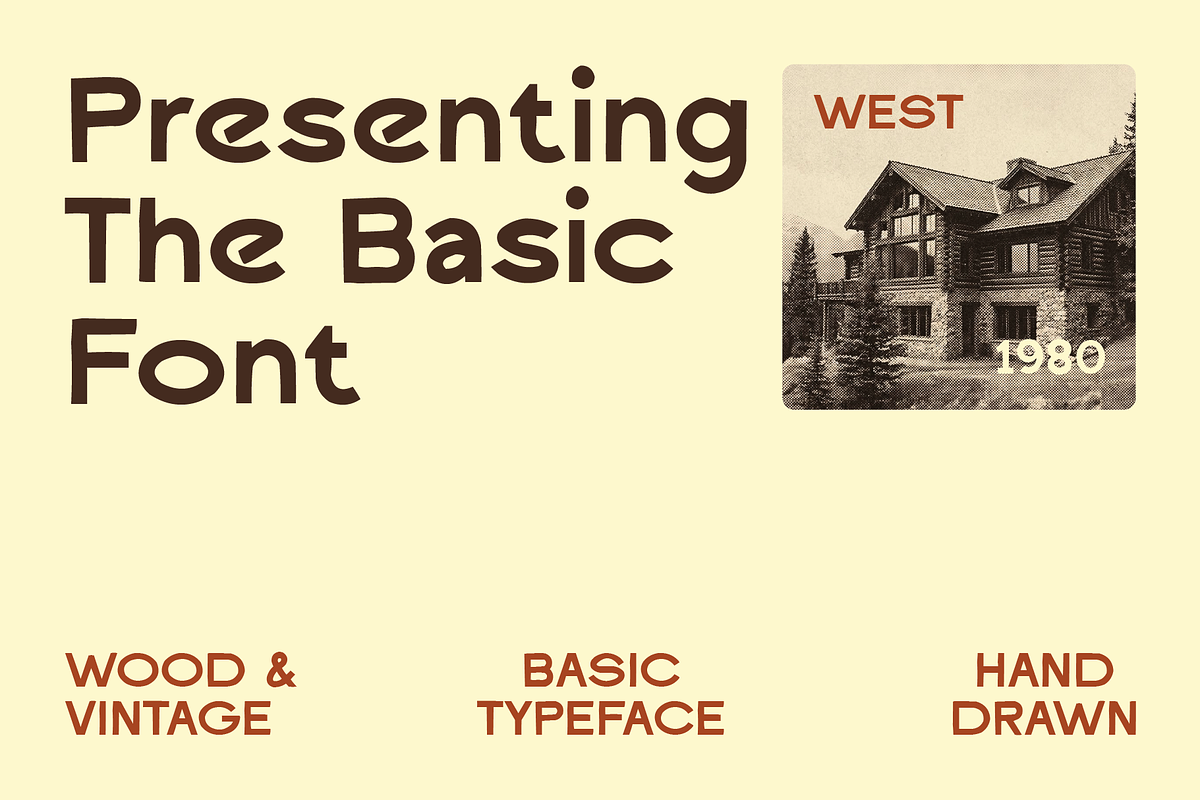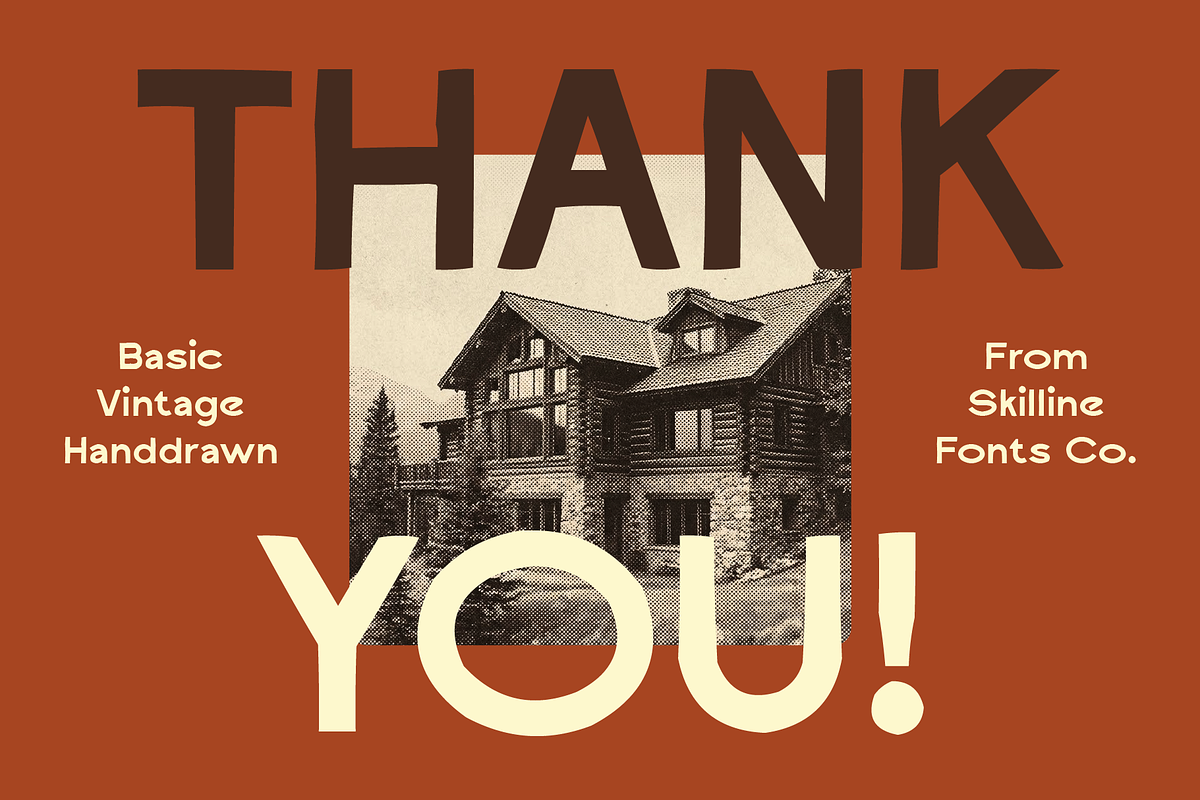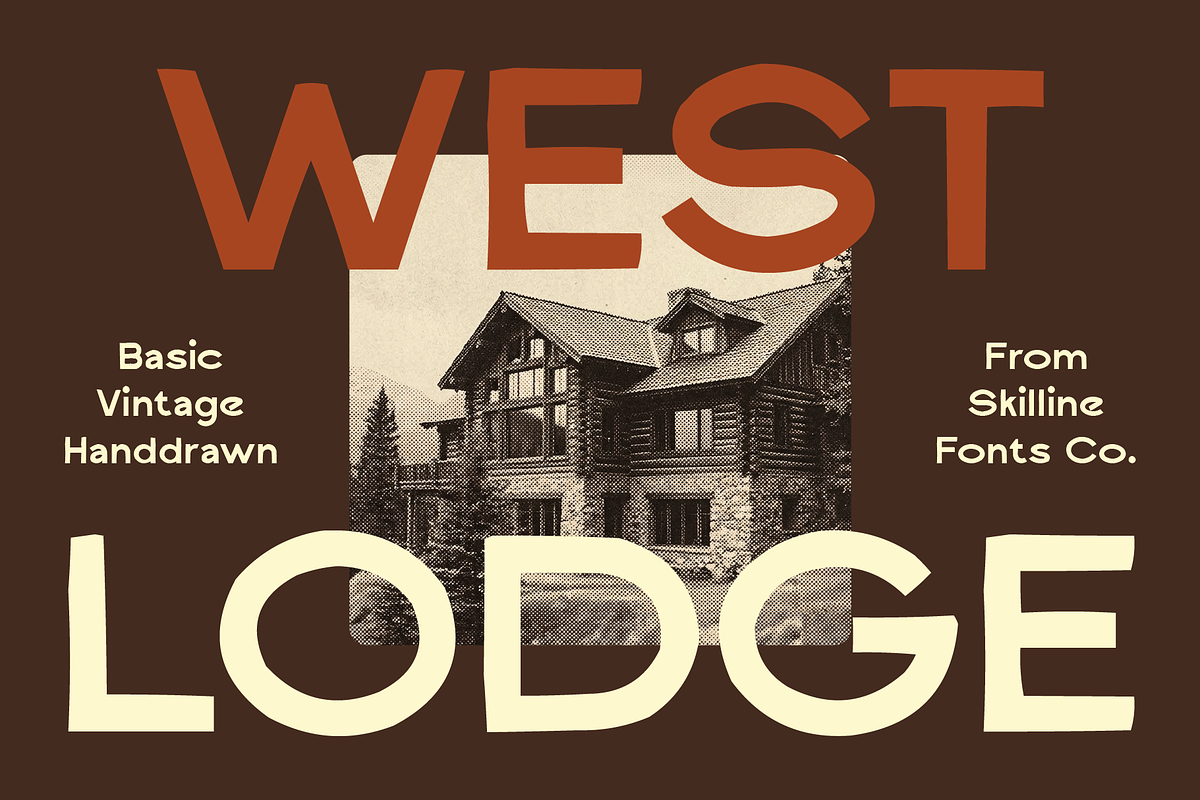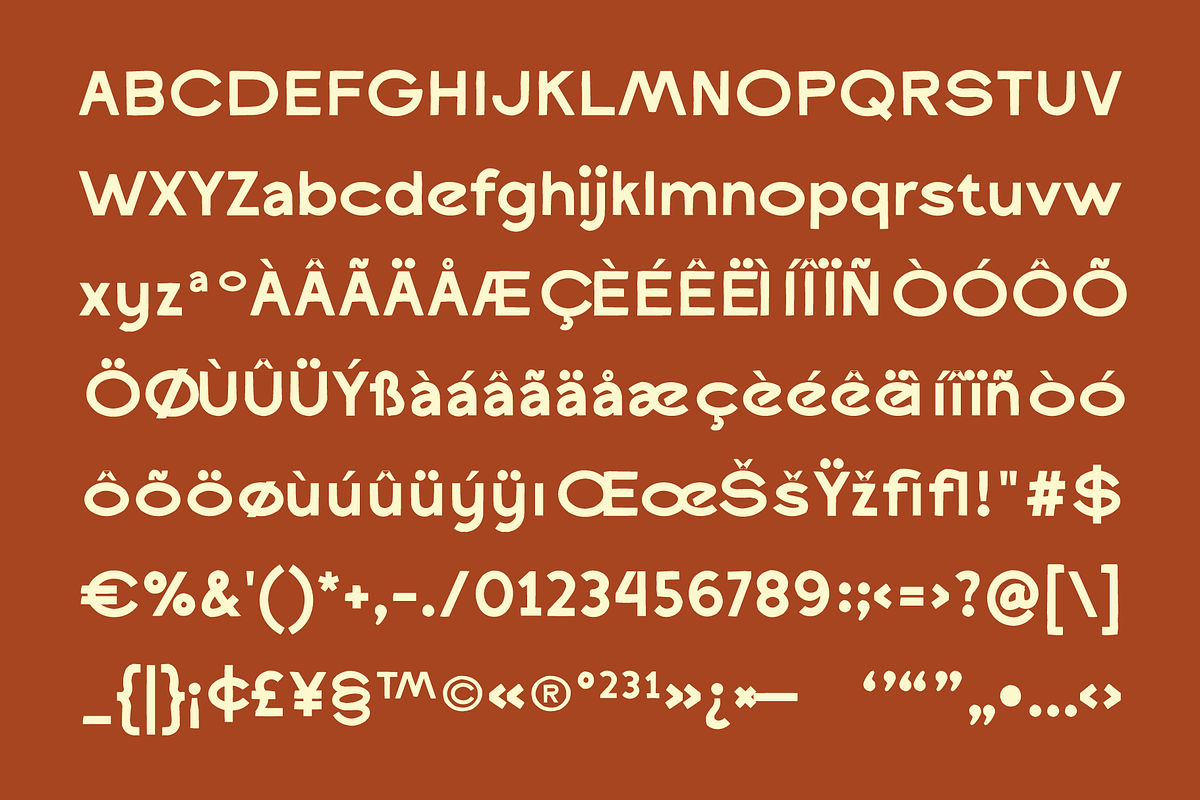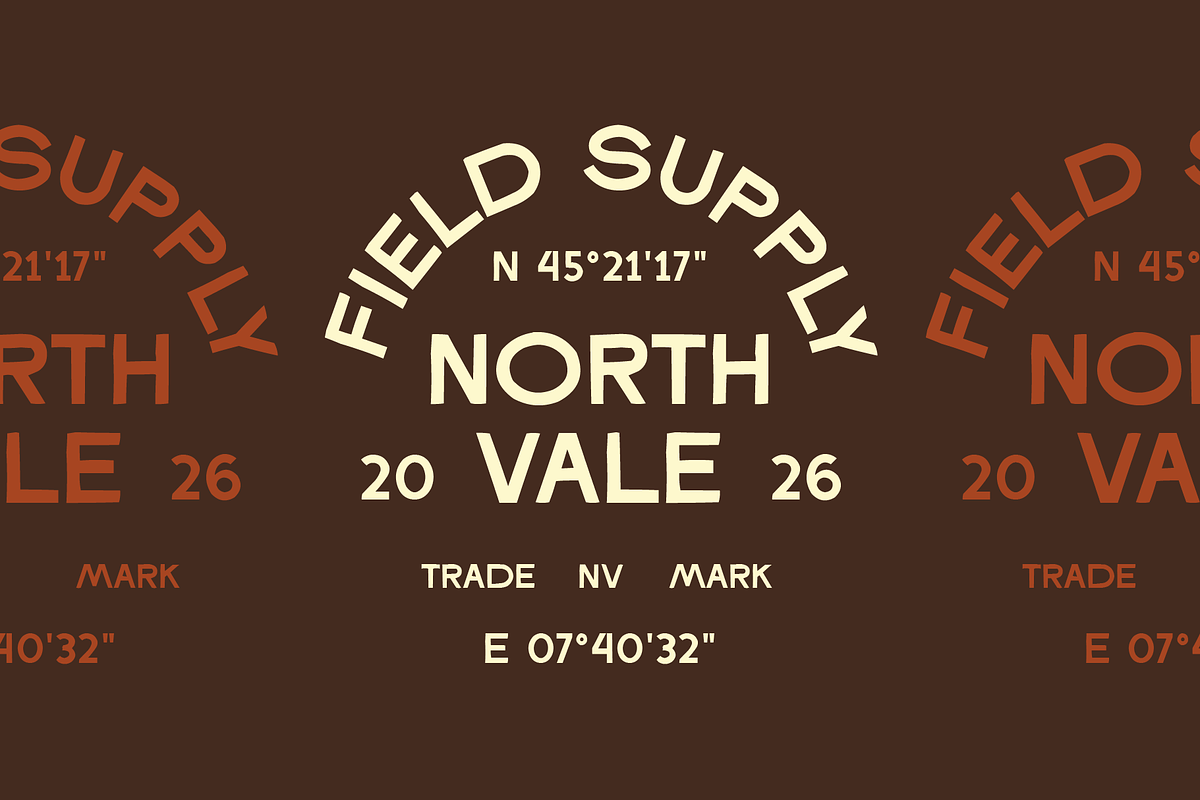
SFC West Lodge
West Lodge is a hand-crafted sans-serif typeface designed with organic textures and sturdy structural proportions. Drawing inspiration from classic artisanal woodwork and traditional sign-painting techniques, the font features warm, tactile edges that convey an authentic, hand-made aesthetic without compromising typographic balance.
Each character is crafted with subtle edge variations and soft, natural line endings that give the letterforms a grounded, rustic personality. The consistent stroke thickness and clean geometric structure maintain strong visual harmony and high readability across both small body text and large-scale visual arrangements.
* Hand-Drawn Sans-Serif
* Organic Subtle Texture
* Rustic Vintage Warmth
* Numerals & Punctuation
* Multi Language